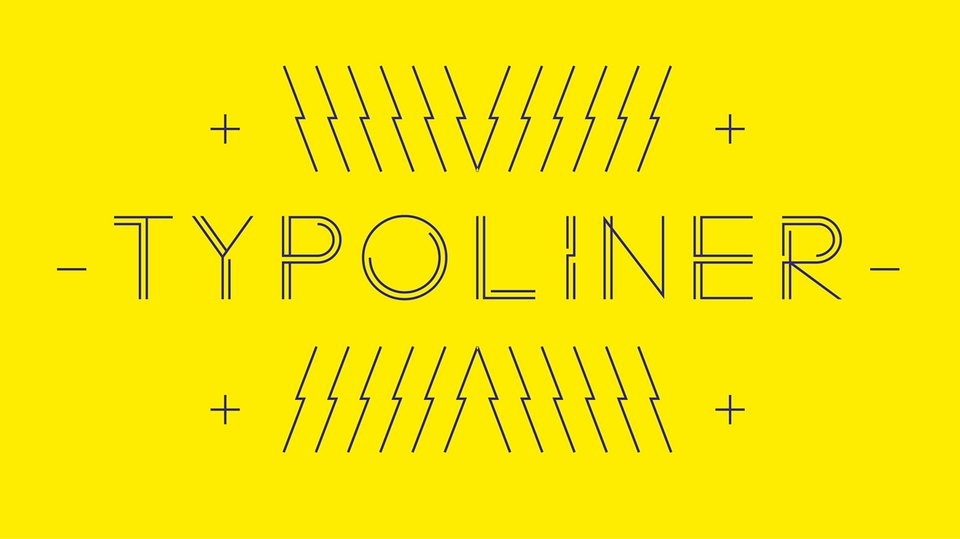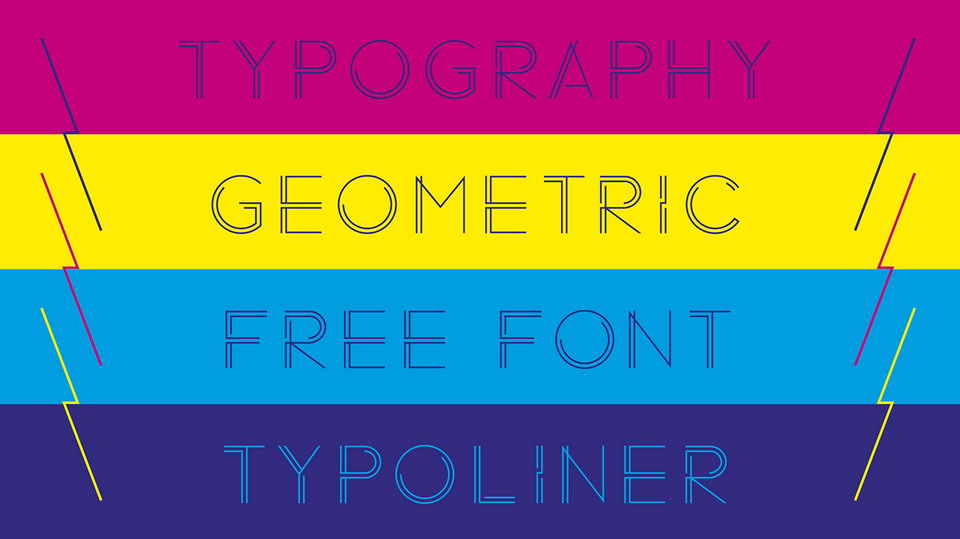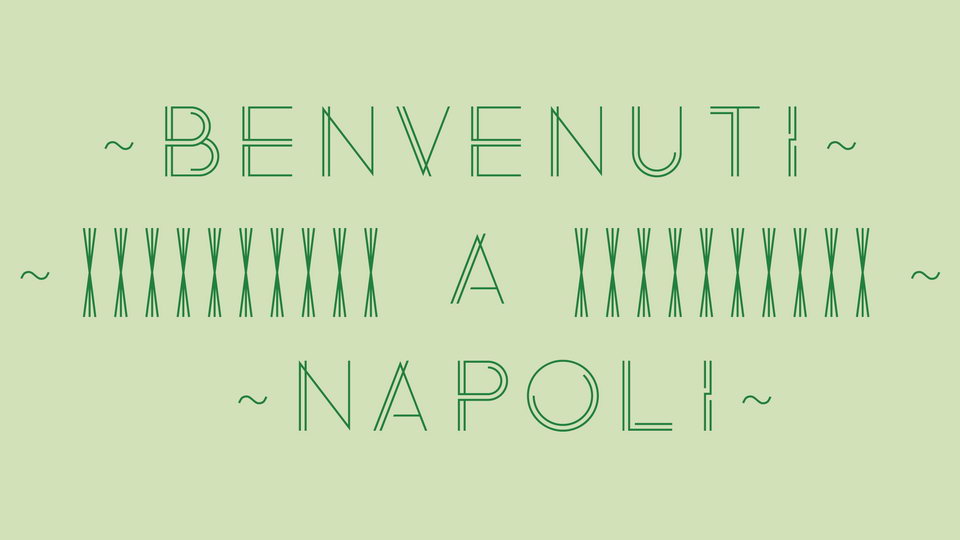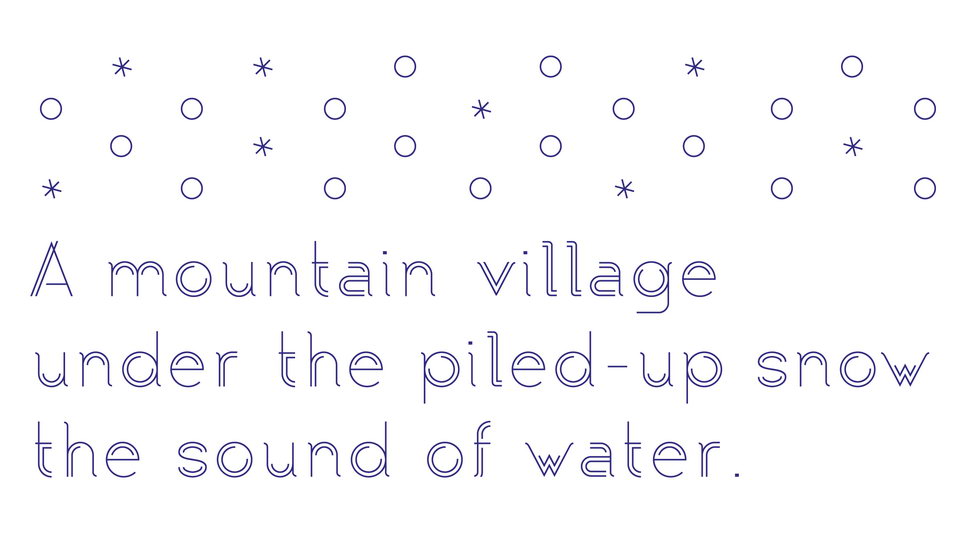
Typoliner is a creative geometric font with unique look created from the lines. It comes with a full set of glyphs, including multilingual support.
Typoliner font is great for logos, branding, headplines and posters, prints and other artworks.